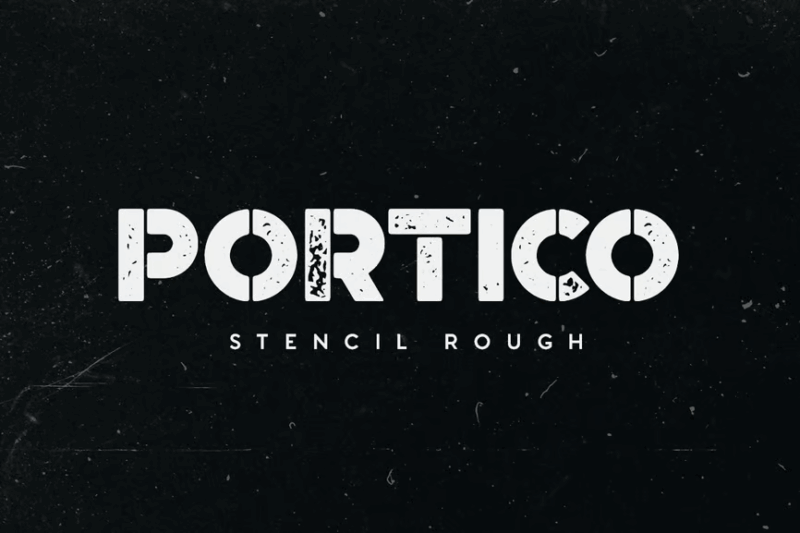
As designers, we’re constantly searching for ways to make our work stand out from the crowd. While color, layout, and imagery all play crucial roles, typography often makes the biggest impact. In particular, textured fonts have emerged as a powerful tool for adding depth, character, and tactile interest to designs that might otherwise fall flat.
Textured fonts are exactly what they sound like – typefaces that incorporate visual texture, giving letters the appearance of being made from concrete, wood, fabric, stone, or other materials. Unlike their smooth counterparts, textured fonts bring an almost three-dimensional quality to designs, making text feel touchable and alive on the page or screen.
So whether you’re designing a rustic logo, an edgy album cover, a vintage poster, or a nature-inspired brand identity, let’s explore how textured fonts can transform your work from ordinary to extraordinary.
44 Most Striking Textured Fonts of 2026
I’ve curated a collection of the most impressive textured fonts available today. Each brings its own unique character and tactile quality to your designs, allowing you to evoke specific moods and materials through typography alone.
Lavarock
Lavarock is a textured sans-serif font with a unique, organic feel. Its rough edges and uneven textures give it an authentic, trend-forward appearance that’s perfect for creating eye-catching designs with a natural, earthy vibe.
Rundeck
Rundeck is a vintage-inspired serif font with a distressed finish. Its weathered appearance lends a nostalgic charm to designs, making it ideal for creating retro posters, logos, and branding materials that evoke a sense of history and character.
Someone
Someone is a textured handbrush script font that exudes a cool, casual vibe. Its natural brush strokes and subtle texture create a handmade feel, perfect for adding a personal touch to branding, social media graphics, and informal designs.
Austral Sans Textures
Austral Sans Textures is a versatile sans-serif font with a handwritten quality and textured finish. Its combination of clean lines and organic textures makes it suitable for a wide range of display applications, from modern branding to artisanal product packaging.
BALLOCS TEXTURED SPORT FONT
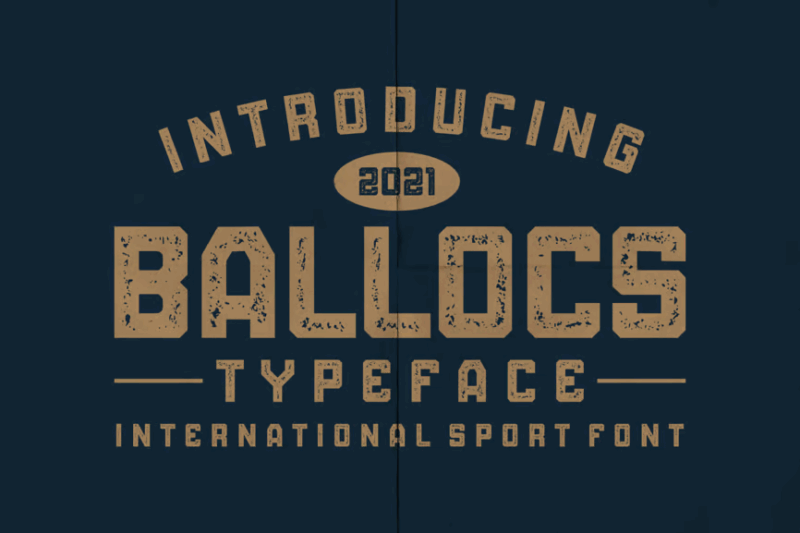
BALLOCS is a bold, textured sans-serif font designed with sports and athletics in mind. Its rough, energetic character and strong presence make it perfect for sports team logos, workout apparel, and dynamic event promotions.
Alioli Texture Font
Alioli is a textured sans-serif font that brings a tactile quality to typography. Its subtle imperfections and gritty texture add depth and character to designs, making it ideal for creating standout headlines and unique branding elements.
Rungkad
Rungkad is a textured block font with an organic feel. Its organic, vector-based texture gives it a natural, imperfect charm that’s perfect for creating authentic-looking signatures, handcrafted product labels, and personalized stationery designs.
DisparityTextured
DisparityTextured is a dynamic brush font with a pronounced texture. Its bold, expressive strokes and varied letter forms create a sense of energy and movement, making it ideal for attention-grabbing headlines, poster designs, and creative branding projects.
Sanfirgo Texture Brush Font
Sanfirgo is a textured brush script font that combines elegance with a handmade feel. Its flowing lines and subtle texture create a sophisticated yet approachable look, perfect for wedding invitations, boutique branding, and artisanal product packaging.
Asthon Hawk
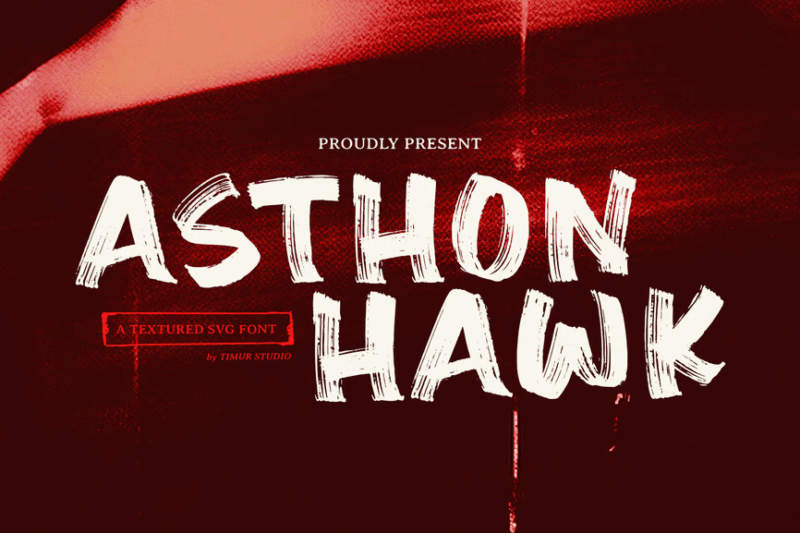
Asthon Hawk is a textured SVG font with a decorative flair. Its intricate textures and ornamental details make it ideal for creating eye-catching backgrounds and decorative elements in web design, digital art, and print projects.
Austral Slab Textures
Austral Slab Textures is a versatile font family that combines slab serif structure with handwritten textures. Its unique blend of styles makes it suitable for a wide range of display applications, from vintage-inspired designs to modern, artisanal branding.
Floresto Textured Typeface
Floresto is a retro-inspired earthy typeface with a textured finish. Its vintage charm and subtle imperfections make it perfect for creating nostalgic designs, mid-century modern branding, and eye-catching display typography with a touch of history.
Marline
Marline is a vintage-style serif font with a textured finish. Its classic letterforms and weathered appearance give it an aged, timeless quality that’s ideal for creating retro-inspired logos, book covers, and nostalgic branding materials.
In the end, great design is about creating meaningful connections, and textured typography offers a uniquely powerful way to connect through the universal language of tactile experience. So go ahead – add some texture to your next project and watch how it transforms from visual to visceral, from seen to felt.